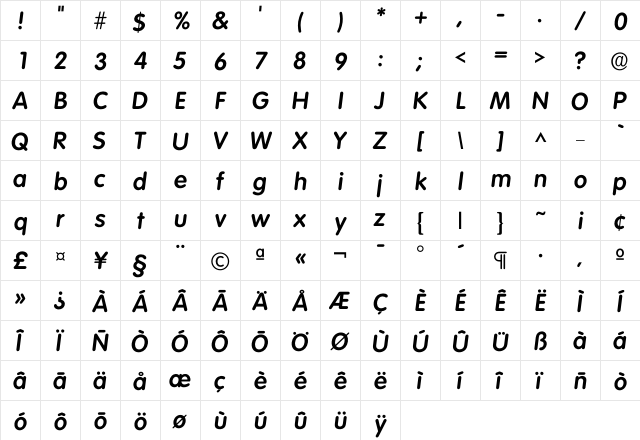
Ivolkswagen DemiBold
Design Context for Ivolkswagen Typeface
Ivolkswagen is a composed and adaptable typeface that performs quietly and consistently across a wide range of design contexts. Its bold stroke weight gives it real presence on the page.